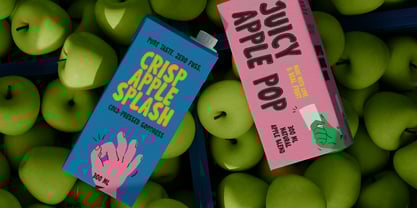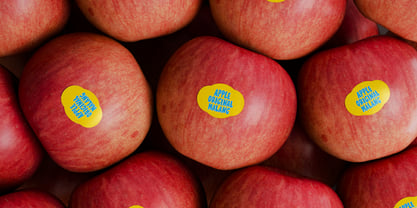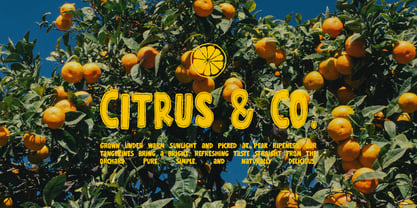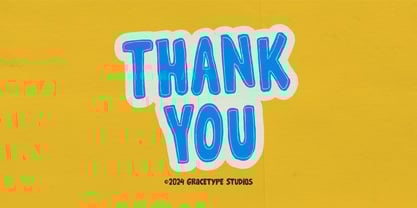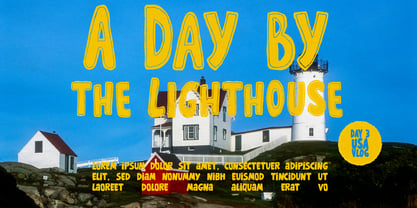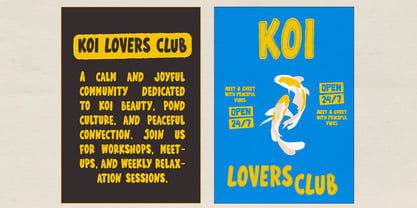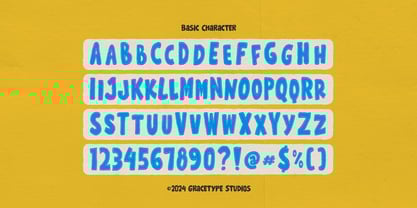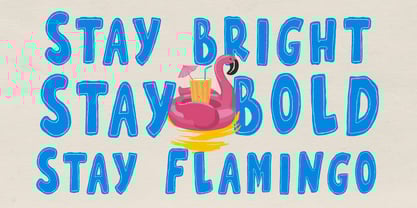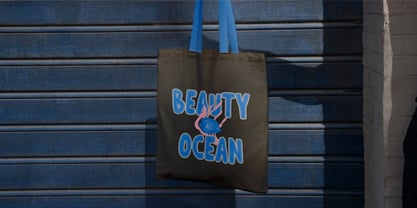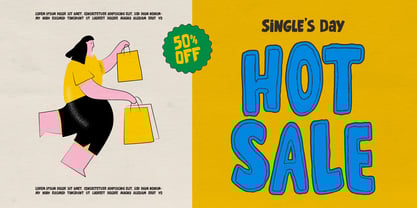
Wonky Dongki
by Tini Fitriani
The Wonky Dongki Font Family was designed by and published by Tini Fitriani. Wonky Dongki contains 2 styles and family package options. More about this family
Wonky Dongki | Hand Drawn Display Font, from Gracetypestudio, suitable for any projects such as: logos, branding projects, homeware designs, product packaging, mugs, quotes, posters, shopping bags, t-shirts, book covers, name card, invitation cards, greeting cards, label, photography, watermark, special events, and all your other lovely projects that need a Hand Drawn taste.